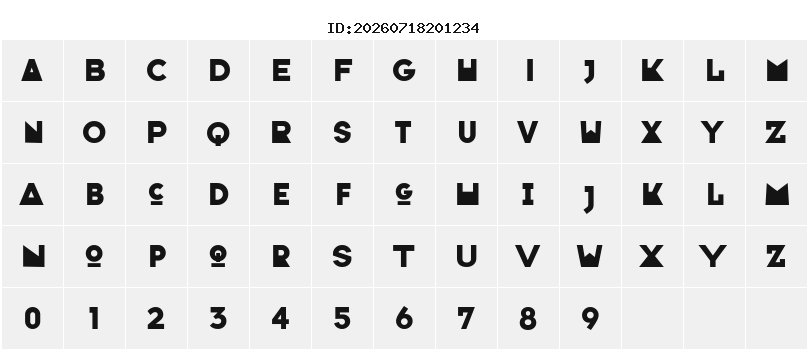
Crazy Loop in Paris Preview
• Font Name: Crazy Loop in Paris
• Font ID: Fontographer 4.7 Crazy Loop in Paris
• Full Font Name: Crazy Loop in Paris
• Version: Fontographer 4.7 1/12/09 FG4M­0000002045
• PostScript Name: CrazyLoopinParis
• Character Count: 241
• Copyright: ©2009­Martin Le Hénand
Crazy Loop in Paris.ttf is a modern, elegant sans-serif font designed for ultimate readability and visual harmony. Perfect for branding, headlines, web design, and print materials.